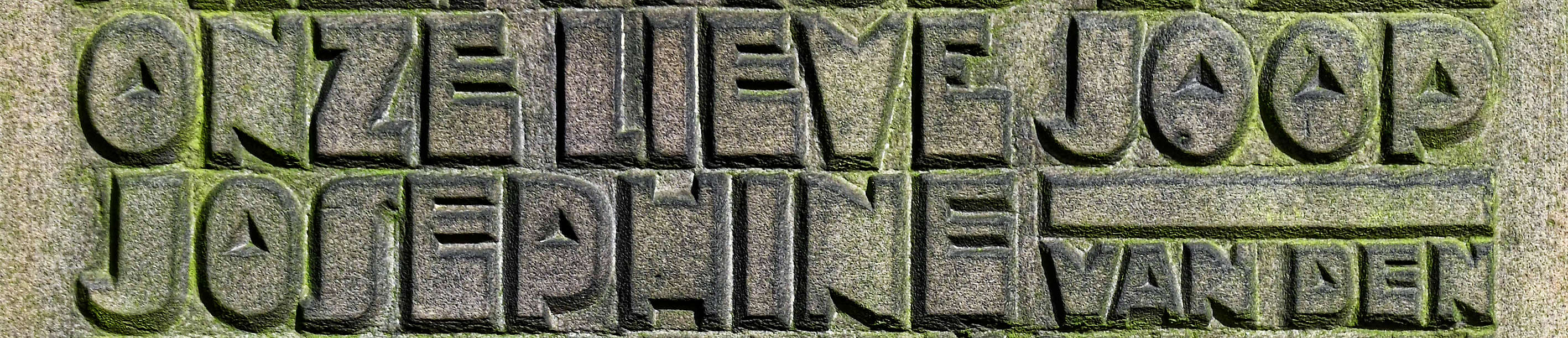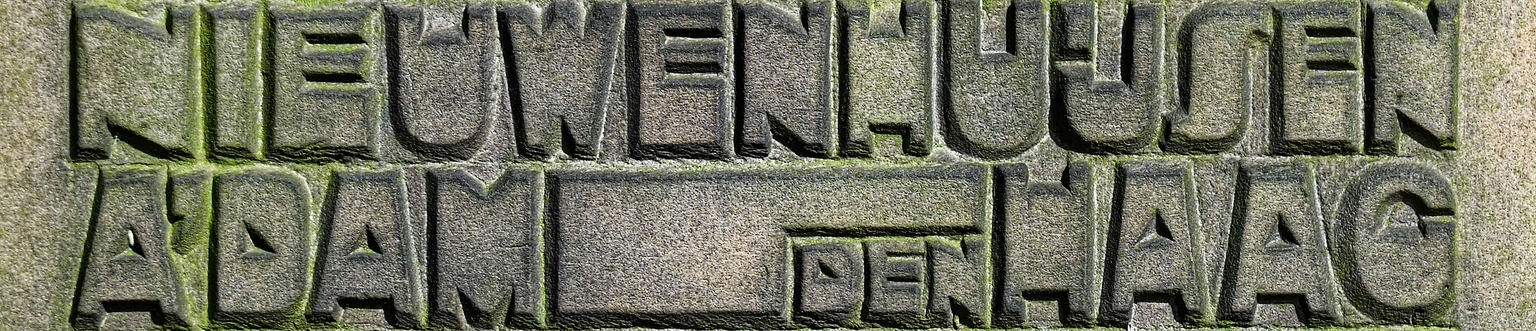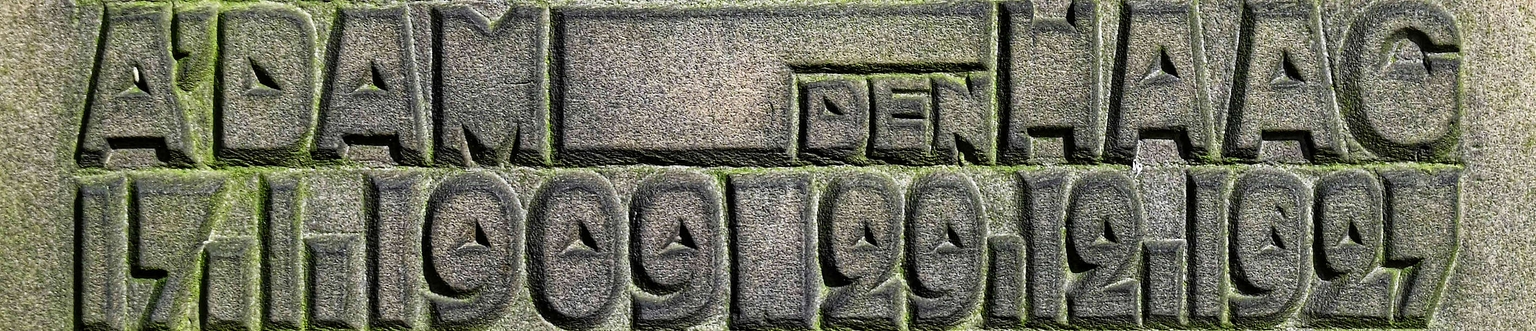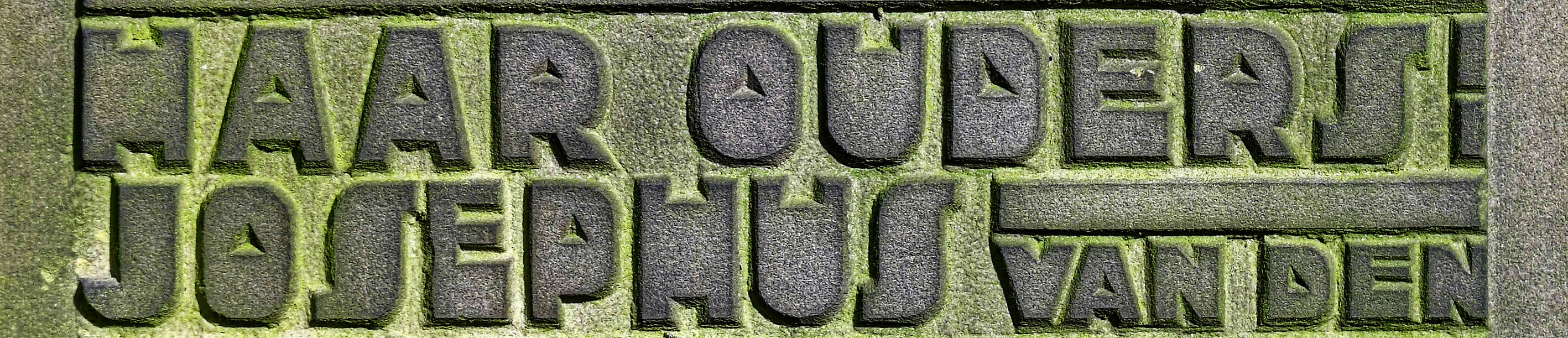
Joop
Joop is a distinctive display typeface inspired by the expressive lettering carved by sculptor Theo Vos (1887–1948) into the tombstone of Josephine van den Nieuwenhuijsen (1909–1927), located in the serene St. Petrus Banden Cemetery in The Hague. Rooted in the visual language of the Amsterdamse School, the original letterforms are idiosyncratic and imaginative—radiating a sense of solemn beauty and emotional intensity.
Digitally interpreted and expanded by Ramiro Espinoza, Joop brings these hand-carved characters into the digital age with care and respect for their unique voice. Its sculptural presence, unconventional proportions, and rhythmic tension make it a striking choice for posters, signage, websites, album covers, and cultural projects seeking historical depth with an expressive edge.